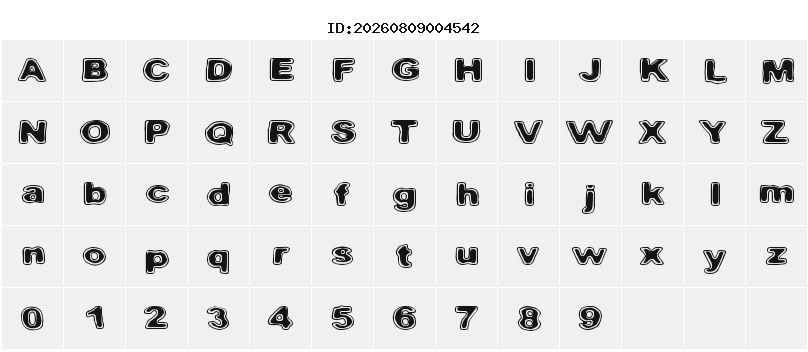
Pintaväre Preview
• Font Name: Pintaväre
• Designer: junkohanhero
About Pintaväre.ttf
Pintaväre.ttf is a modern, elegant sans-serif font designed for ultimate readability and visual harmony. Perfect for branding, headlines, web design, and print materials.